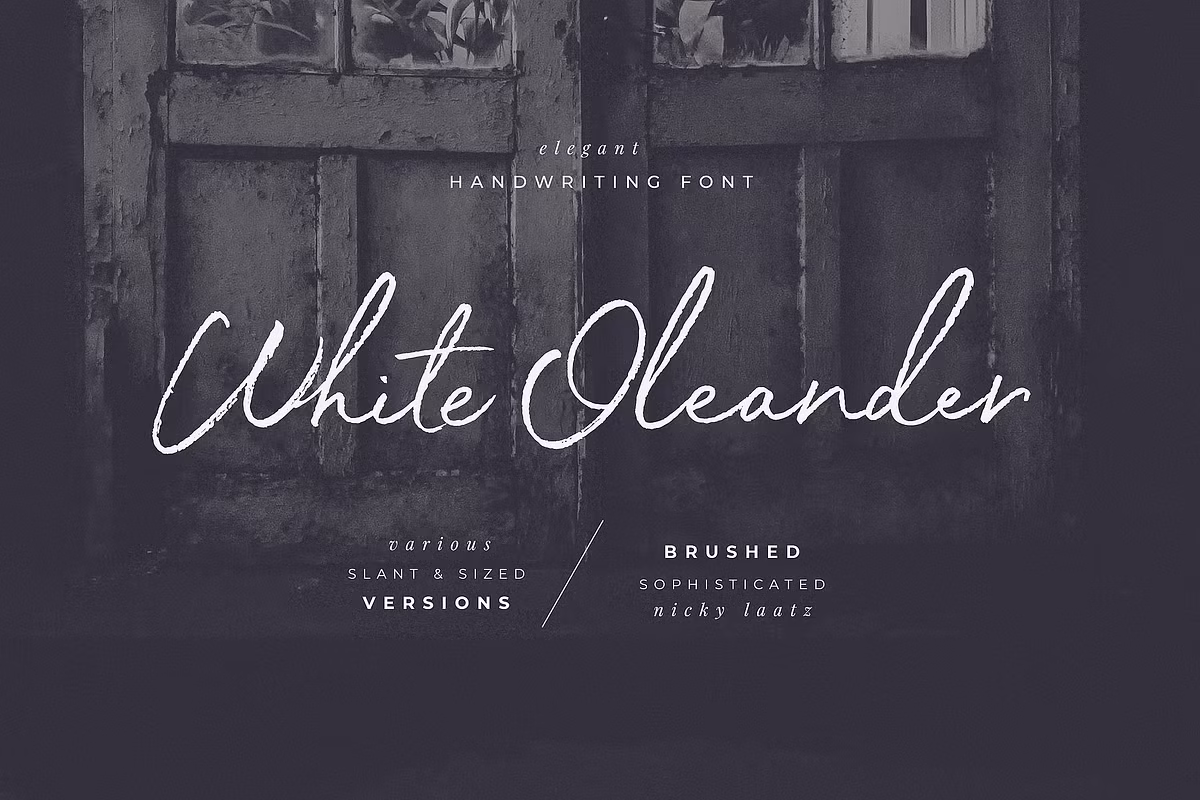
White Oleander Handwritten Font Free Download is a stylish, elegant handwritten script typeface with a graceful, personal touch. Perfect for wedding invitations, branding, greeting cards, social media graphics, and projects that need a creative, handwritten flair, this font captures the essence of authentic calligraphy with a modern twist.
With its flowing strokes and delicate form, White Oleander brings a soft, artistic touch to any design, making it ideal for projects that require sophistication and charm. It’s particularly suited for creative works where a personal, elegant vibe is needed.
The font includes uppercase and lowercase letters, numerals, punctuation, and multilingual support, ensuring versatility across various design projects. It works well in both print and digital formats, adding a refined touch to your typography.